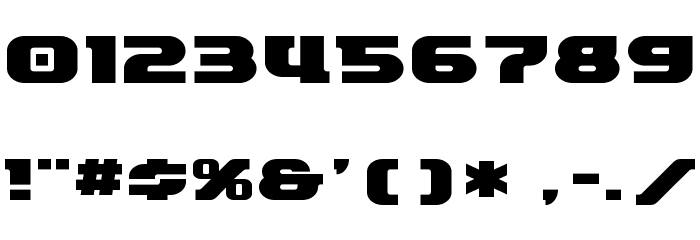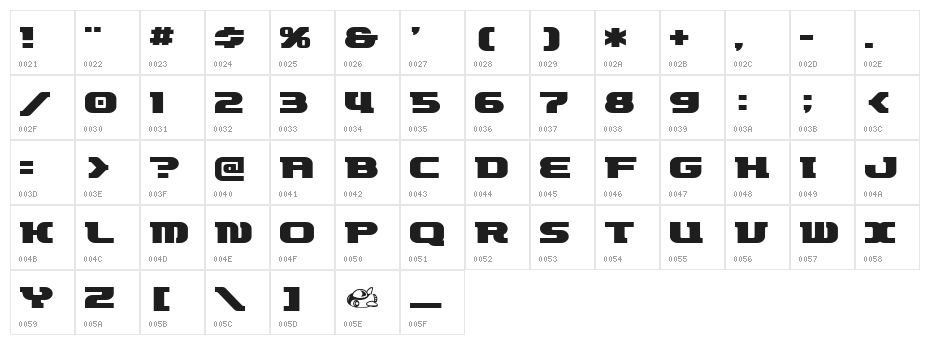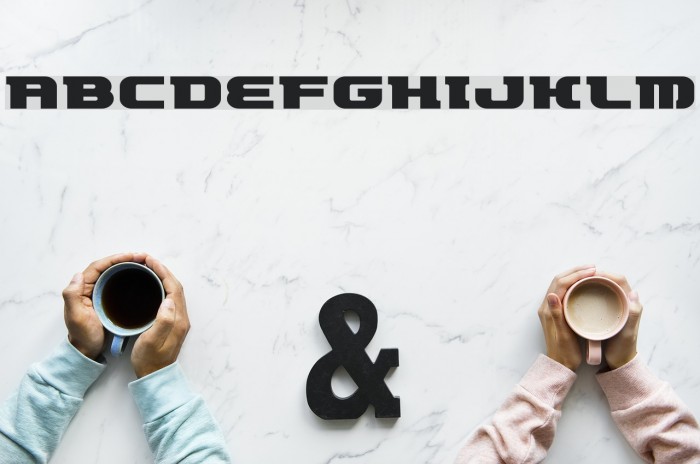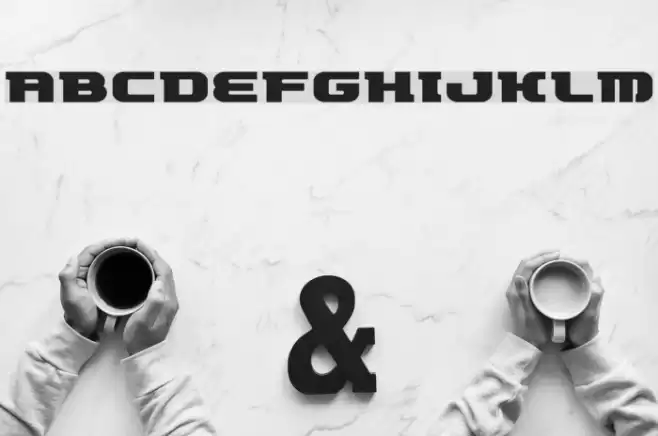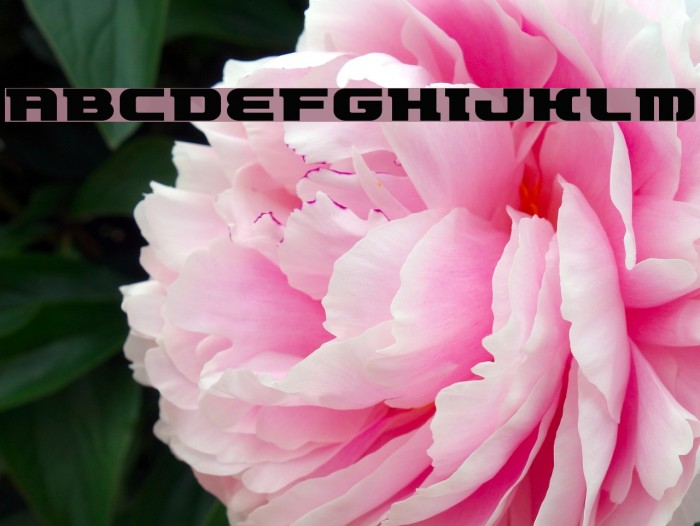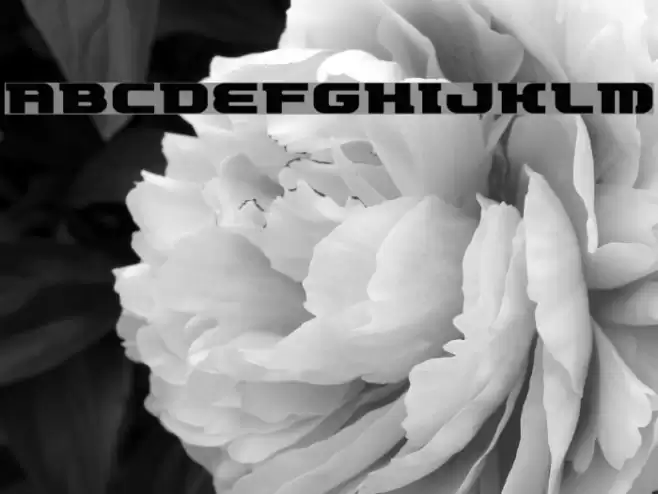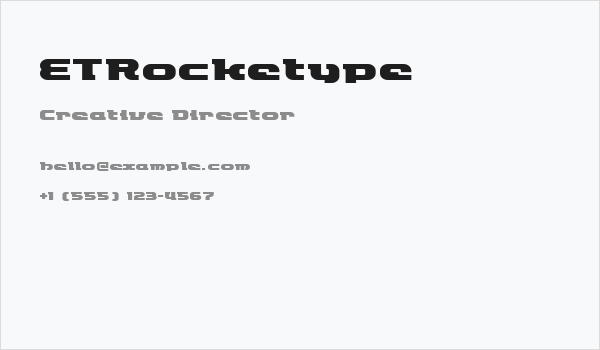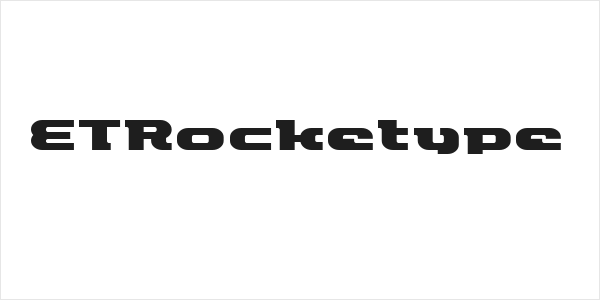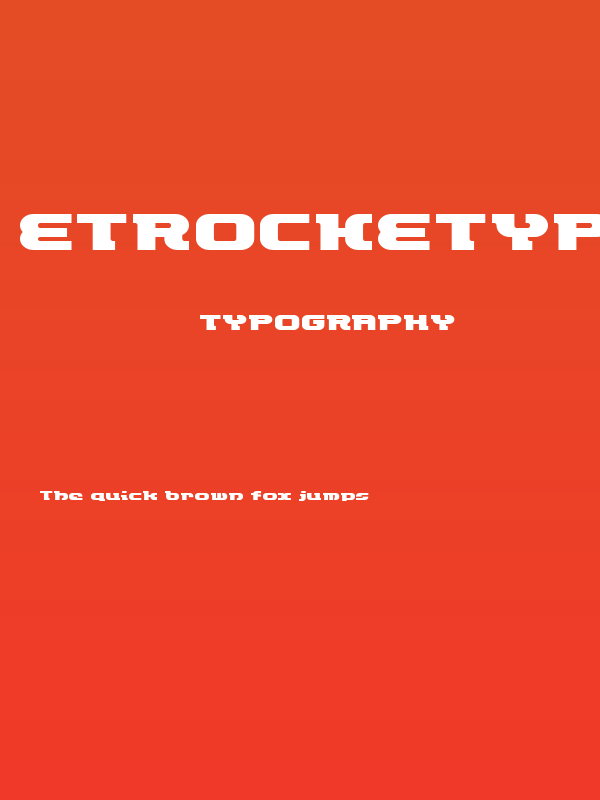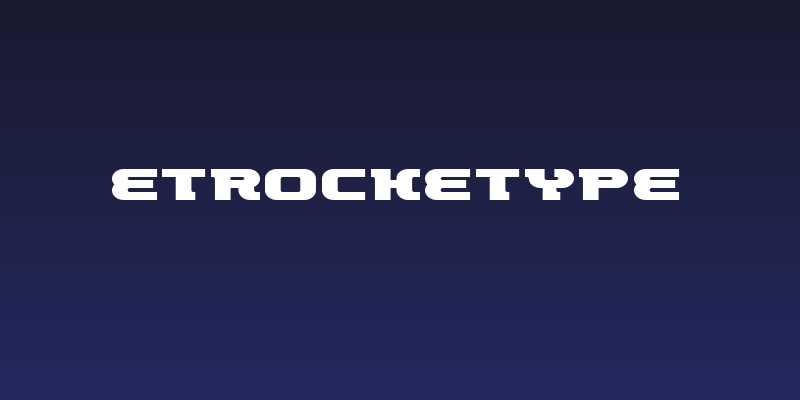
ETRocketype Font
ETRocketype Description
This font features a bold and futuristic design with a strong presence. The characters are wide and have a geometric structure, giving them a modern and industrial feel. The uppercase and lowercase letters maintain a consistent style, with rounded edges and a uniform thickness that adds to the font's cohesive appearance. The numerals and special characters are designed to match the boldness of the alphabet, ensuring a seamless integration across different uses. The overall style is both eye-catching and functional, making it suitable for a variety of design projects.
| Proposed Projects | Ideal for technology branding, sci-fi themed designs, video game interfaces, and modern advertising campaigns. |